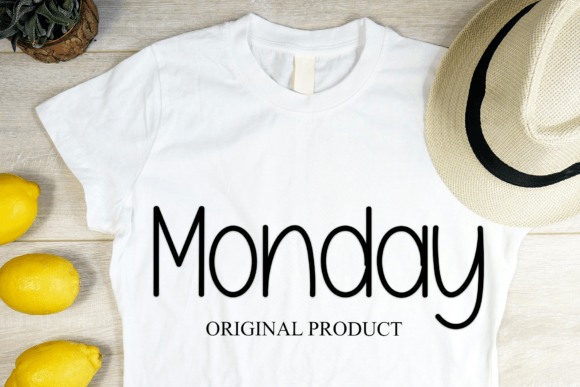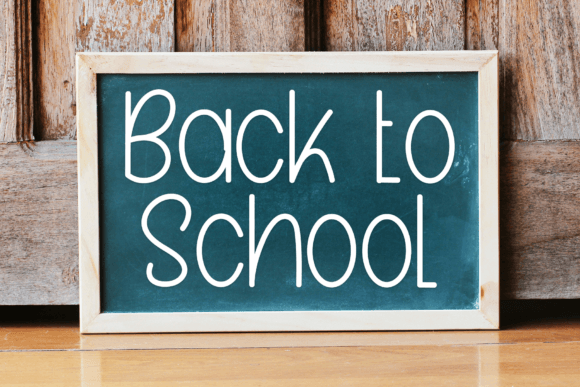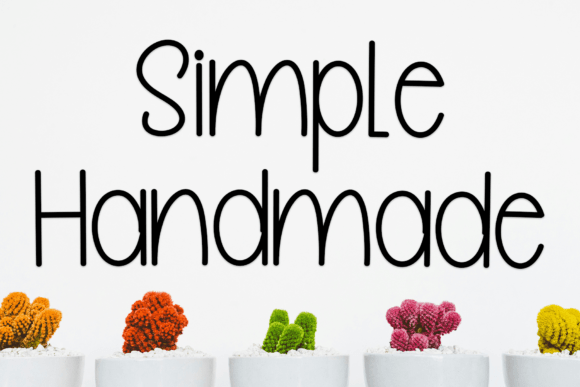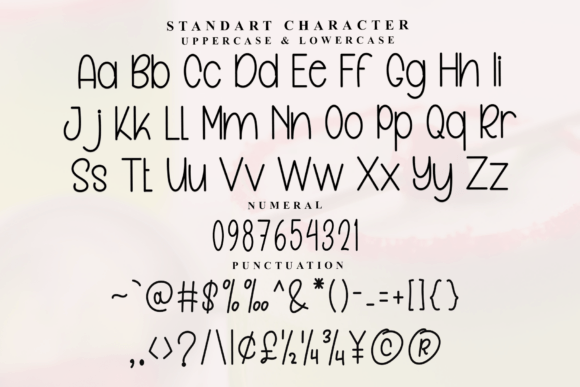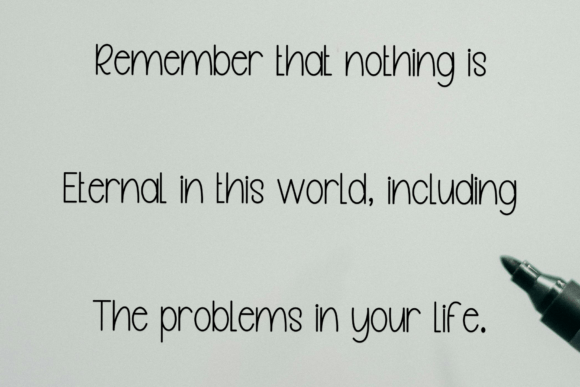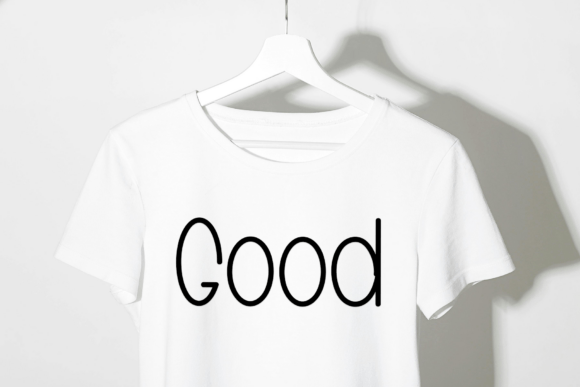
Introduction to Simple Antumn Font
Have you ever stared at a blank canvas, waiting for inspiration to strike? That’s where the magic happens – in the moments of creative uncertainty, when the right font can make all the difference. For designers, the perfect font can elevate a project from ordinary to extraordinary, and that’s exactly what the Simple Antumn Font offers.
With its smooth touch and beautiful strokes, this handcrafted font is designed to give a natural feel to your work. Whether you’re working on a creative project, designing a logo, or crafting a wedding invitation card, the Simple Antumn Font is a valuable resource that will help you achieve high-quality results. Its versatility and beauty make it an excellent choice for various design needs, from banners and YouTube thumbnails to clothing mockups and t-shirts.
Key Features of Simple Antumn Font
- High-quality font design ideal for creative projects, offering a clean and modern aesthetic.
- Unique characteristics include its elegant and sophisticated feel, making it perfect for branding, logos, and other design elements.
- Suitable for a wide range of design applications, including digital and print media, due to its high-quality and versatile design.
Honest Review: Simple Antumn Font
- ✨ The font’s elegant design makes it perfect for creating a sophisticated look.
- ✨ The transparent background allows for seamless integration with any image or background.
- ✨ The font’s versatility makes it suitable for a wide range of creative projects, from print to digital design.
- ⚠️ The font’s limited character set might not be suitable for projects that require extensive typing.
- ⚠️ The font’s style, while elegant, might not be the best fit for more casual or playful projects.
Overall, I’m impressed with the Simple Antumn Font. It’s a valuable design resource that can elevate any creative project with its high quality and versatility. If you’re looking for a sophisticated font for your next project, I’d definitely recommend giving it a try.